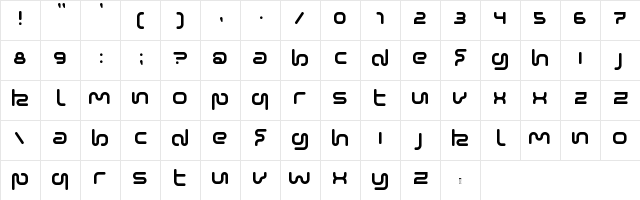
Sonic Empire Regular
Design Context for Sonic Empire
Sonic Empire is a composed and adaptable typeface that performs quietly and consistently across a wide range of design contexts.